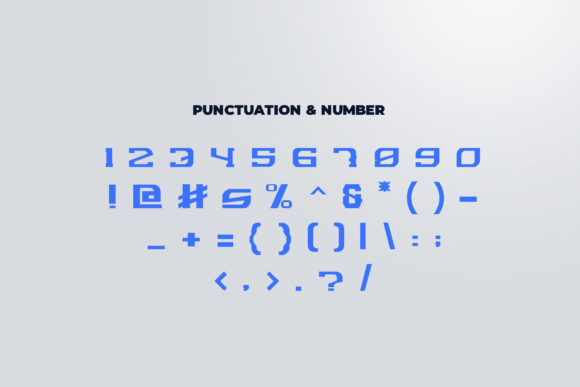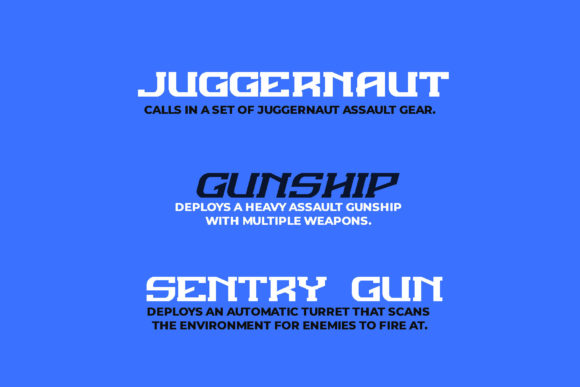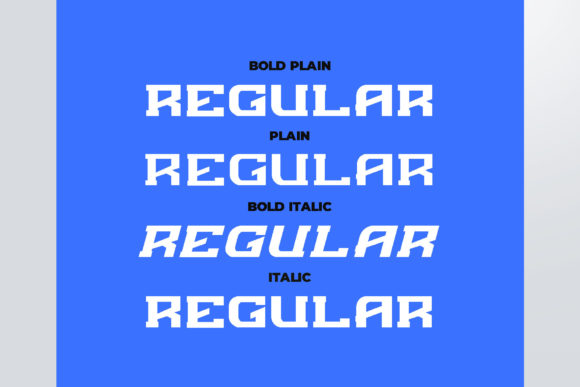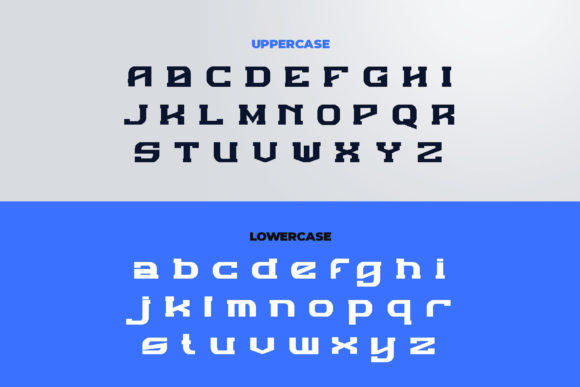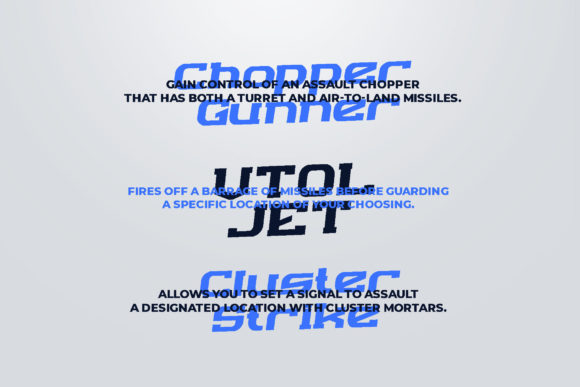
Introducing Defour Font: The Ultimate Choice for Team and Community Logos
Are you a designer or crafter looking for a font that exudes energy, dynamism, and a sense of community? Look no further than Defour Font. This sporty display font is perfect for creating team or community logos that stand out from the crowd. In this article, we’ll dive into the features and benefits of Defour Font, and explore how it can elevate your design projects.
What is Defour Font?
Defour Font is a modern, sans-serif display font that’s specifically designed for creating bold and eye-catching logos. Its sleek lines, geometric shapes, and sporty vibe make it an ideal choice for teams, communities, and organizations looking for a font that reflects their dynamic and energetic personality.
Key Features of Defour Font
- Dynamic and Sporty Design: Defour Font boasts a unique and energetic design that’s perfect for creating logos that demand attention.
- Versatile and Adaptable: This font is suitable for a wide range of design projects, from team logos and community branding to sports apparel and merchandise.
- Easy to Read: Despite its bold and dynamic design, Defour Font remains highly legible, even at smaller sizes.
- Customizable: With its wide range of weights and styles, Defour Font can be easily customized to fit your specific design needs.
Benefits of Using Defour Font
So, why choose Defour Font for your design projects? Here are just a few benefits of using this amazing font:
- Instant Recognition: Defour Font’s unique design ensures instant recognition and recall, making it perfect for logos and branding.
- Professional Look and Feel: With Defour Font, you can create professional-looking logos and designs that exude quality and sophistication.
- Time-Saving: Defour Font’s versatility and adaptability save you time and effort, as you can use it across multiple design projects.
- Unique and Creative: Defour Font’s sporty and dynamic design allows you to create unique and creative designs that stand out from the crowd.
Who Can Use Defour Font?
Defour Font is perfect for a wide range of designers, crafters, and organizations, including:
- Graphic Designers: Looking for a font that can add a dynamic touch to their designs.
- Sports Teams and Leagues: Seeking a font that reflects their energetic and competitive spirit.
- Community Organizations: Needing a font that represents their unity and solidarity.
- Fashion Brands: Wanting a font that exudes style, energy, and dynamism.
How to Use Defour Font
- Experiment with Different Weights and Styles: Defour Font comes in a range of weights and styles. Experiment with different combinations to find the perfect look for your design.
- Pair with Other Fonts: Defour Font pairs well with other sans-serif fonts. Try pairing it with a serif font for added contrast.
- Use in Combination with Images: Defour Font looks great when used in combination with images. Try using it as a title font or overlay text.
In conclusion, Defour Font is a dynamic and sporty display font that’s perfect for creating team or community logos. Its unique design, versatility, and adaptability make it an ideal choice for designers, crafters, and organizations looking for a font that exudes energy and dynamism. With its wide range of benefits and uses, Defour Font is sure to become a staple in your design toolkit.